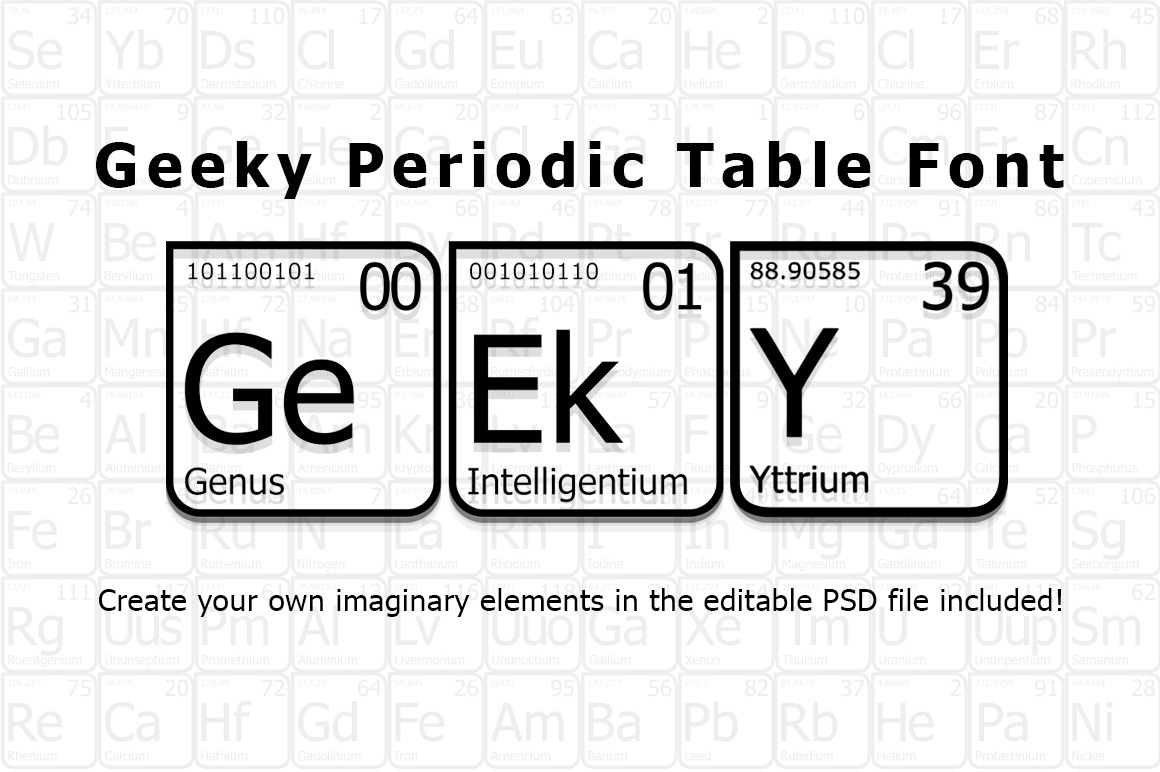
Geeky Periodic Table Font
Geeky Font plus PSDs for customization is included in this item. You get the font family of 2 x .OTF files and 2 x WOFF files, a PSD file with each Element as a transparent layer, plus an EDITABLE PSD file of the single element so you can change the text and have fun creating your own imaginary elements for invitations, celebrations or commemorations, t-shirt designs and so on. The molecular elements are correct to the best of my knowledge but I invite any geeky pundit to search for errors, in which case let me know and I will update.